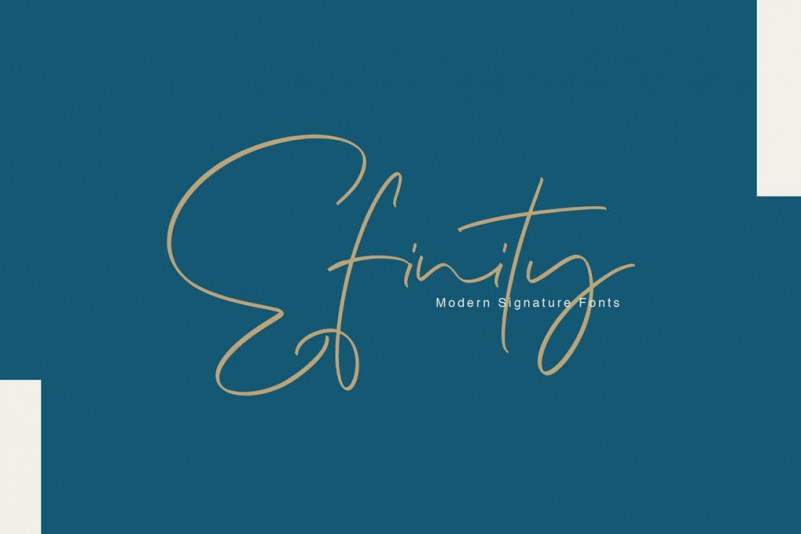
Efinity Font
Efinity comes with the standard character and some ligatures. Perfect for your branding, presentations, wedding, and more designs.
You can play the ligatures with standard character.